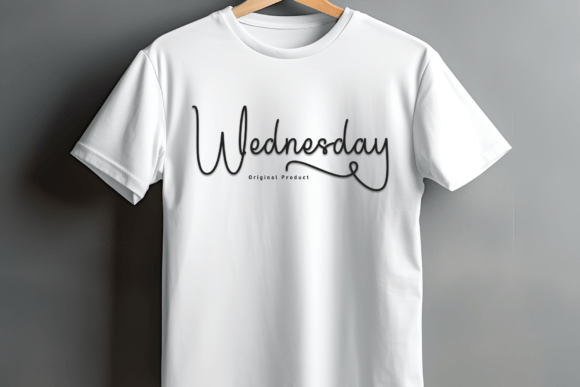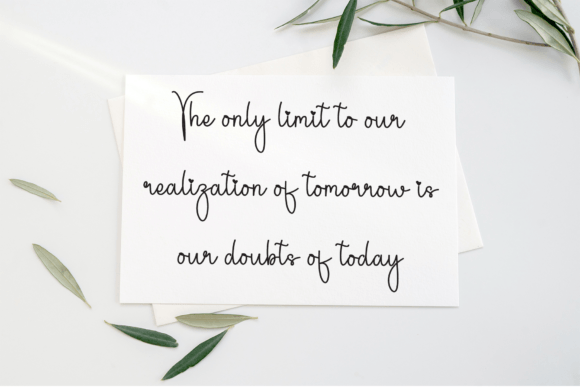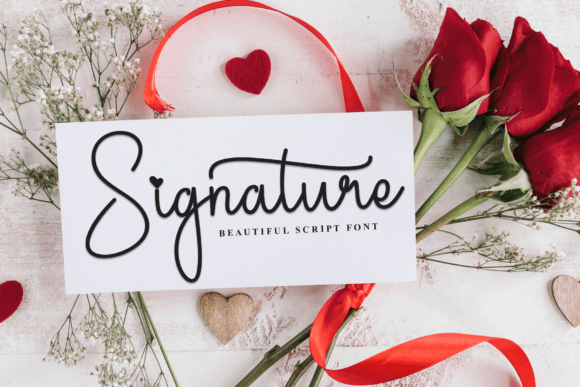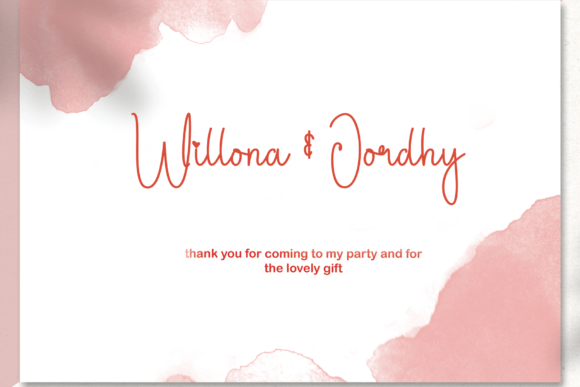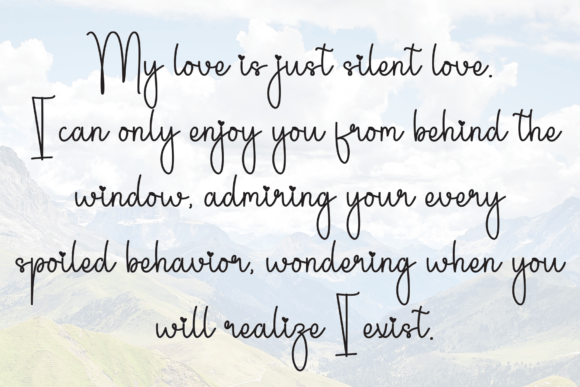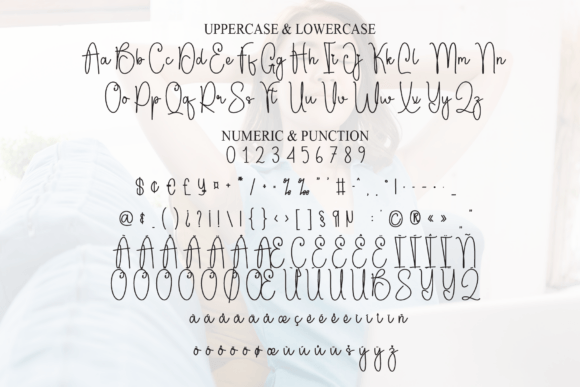
The Perfect Brushstroke: Unveiling the Breathney Font
Have you ever stumbled upon a font that instantly transports you to a world of creativity and elegance? For designers, that moment is a treasure trove of inspiration, and I’m about to share it with you. It’s the moment when the right font brings your design to life, adding a touch of sophistication and warmth that speaks directly to your audience.
Enter the Breathney Font, a stylish handwritten script that exudes charm and elegance. Its fluid strokes and natural flow create a captivating look that’s perfect for invitations, branding, or social media. As a designer, you’ll appreciate the versatility and uniqueness of Breathney Font, which brings a personal touch to any design. Whether you’re looking to elevate your personal brand or create a lasting impression, this font is a valuable addition to your design toolkit.
- Unique Characteristics: This font features a unique blend of modern and vintage elements, with intricate details and ornaments that add a touch of elegance and sophistication.
Breathney Font Review
I recently had the chance to work with the Breathney Font and I must say it’s a unique and interesting typeface. Here are my thoughts:
- The Breathney Font has a distinctive and elegant feel to it, making it perfect for luxury or high-end branding.
- The font is highly customizable, with a range of weights and styles to choose from.
- The font’s script-like quality makes it ideal for creating a sense of movement and fluidity in designs.
- The font may not be the best choice for body text, as it can be quite difficult to read in smaller sizes.
- The font’s script-like quality can also make it prone to errors, particularly in cases where the text needs to be highly legible.
- The font’s customization options can also make it feel a bit overwhelming to use, particularly for those who are not experienced designers.
The Breathney Font is a great choice for designers who want to add a touch of elegance and sophistication to their designs. While it may have some limitations, it’s definitely a unique and interesting typeface that can help to set designs apart.
Tips for Getting the Most Out of Breathney Font
Here are some tips to help you get the most out of Breathney font:
- Use Breathney font for headings and titles to add a touch of elegance and sophistication.
- Pair Breathney font with other fonts to create a unique and eye-catching combination.
- Experiment with different font sizes and styles to achieve the desired visual effect.